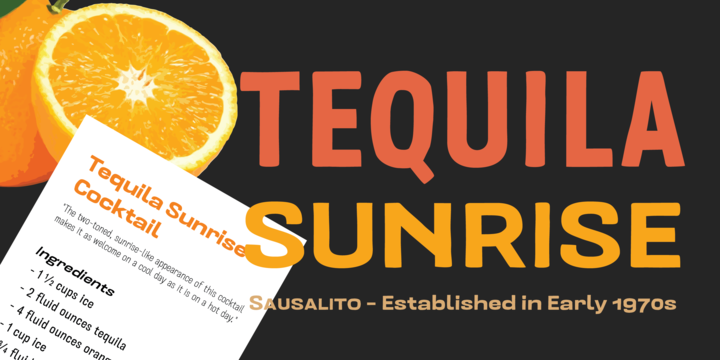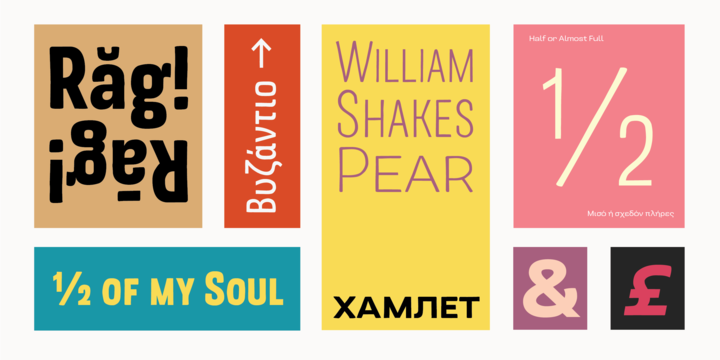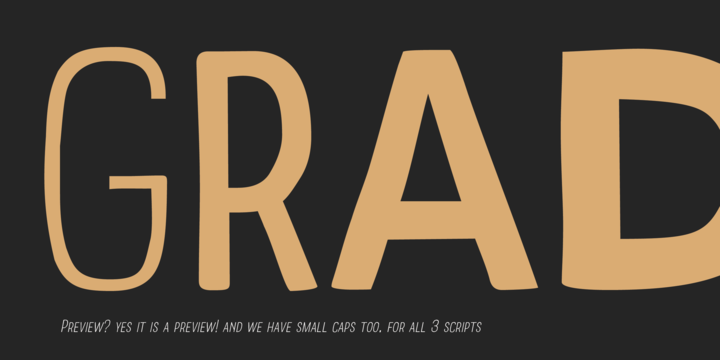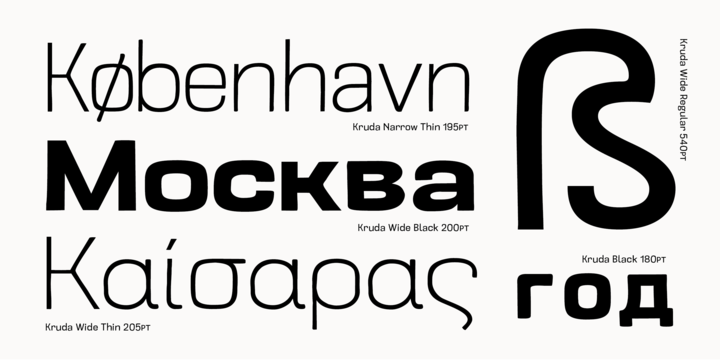
Kruda Font Family
Hello Guys! This is a family of Sans Serif fonts. Introducing Kruda Typeface. Kruda is a Handcrafted display sans with 3 widths and 5 weights with accompanying slanted version. inspired by a vintage grotesk on a worn out signs and this was an initial sketch for our typeface Naratif, but it went too far. so we completed the language support for LATIN, CYRILLIC, and GREEK. and decided to take the risk to release it.